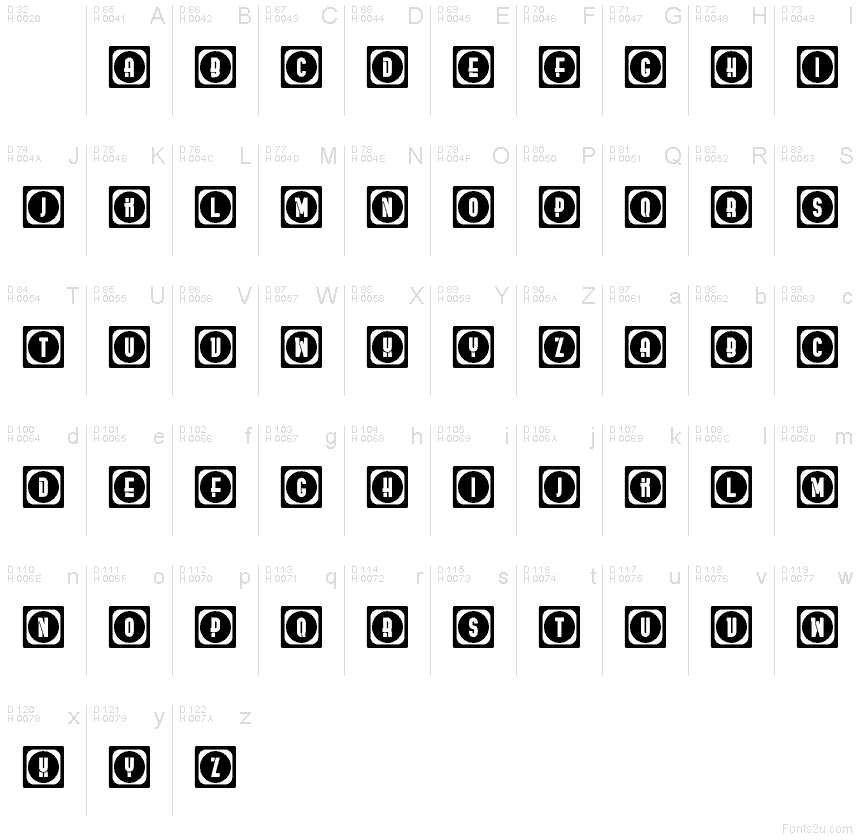
Ordinary Capitals Extravagant Regular
Ordinary Capitals Extravagant font by Vladimir Nikolic is a free decorative display font built around a bold idea: every letter sits inside a glossy, rounded square badge with a crisp border. The rhythm is steady and modular, like a row of retro arcade buttons—high contrast, tight spacing, and unmistakable presence. Part of the Ordinary Capitals family, it turns simple text into punchy tokens you can drop into layouts without extra styling.
Using Ordinary Capitals Extravagant, titles snap into place for game covers, event posters, stickers, app icons, signage, social avatars, and merch tags. This free font shines at big sizes where the badge edges stay sharp and tactile. Pair with a clean geometric sans for supporting copy, and keep tracking minimal to preserve the compact, button-like grid.